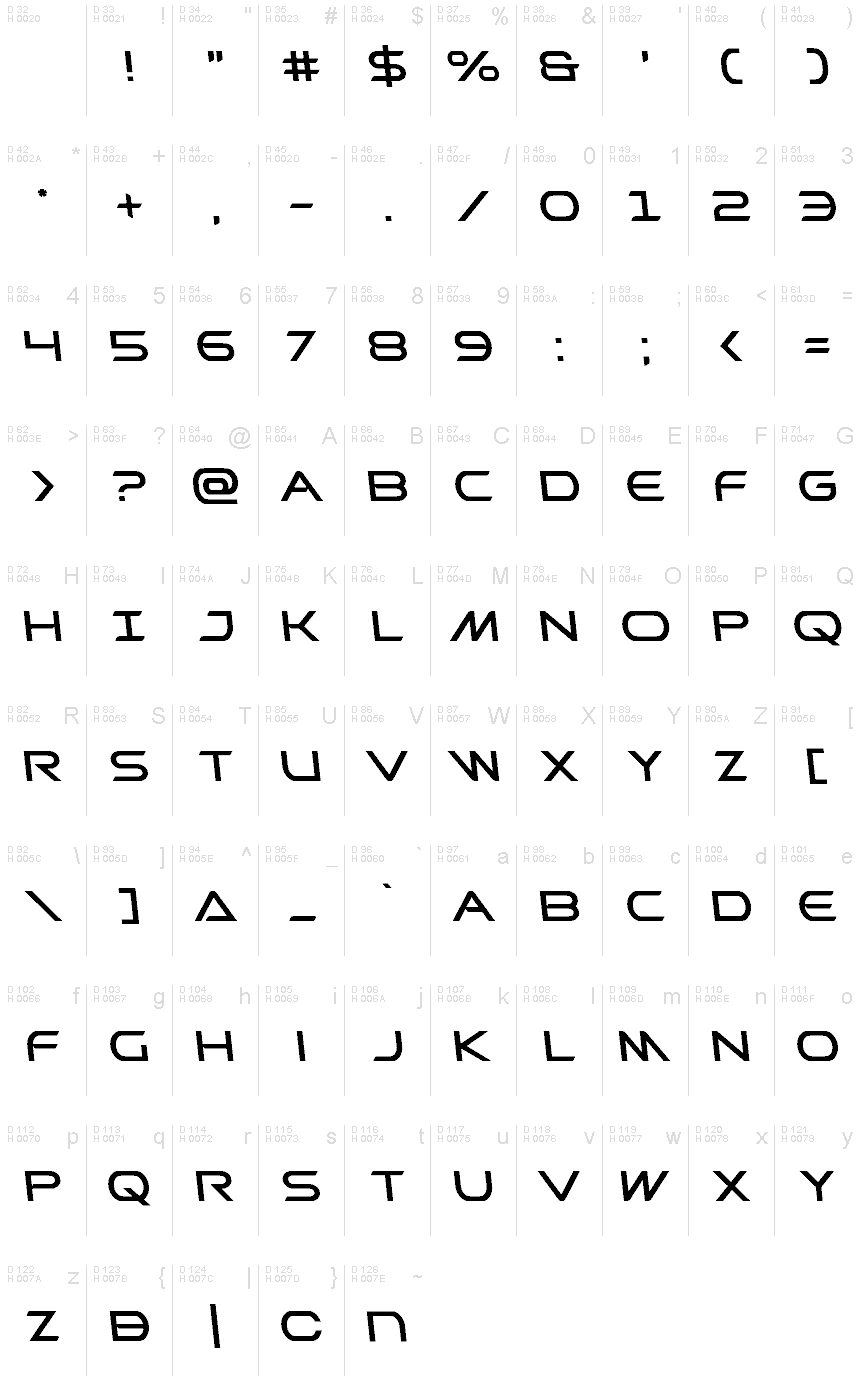
Promethean Semi-Leftalic font by Iconian Fonts is an expanded futuristic display font with a modern, sophisticated appearance. Its clean lines and angular shapes give it a contemporary geometric style that caters to brands aiming to stay ahead of the competition.